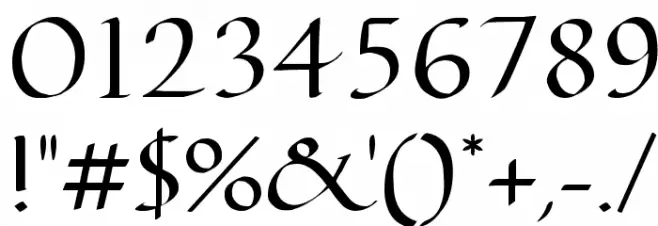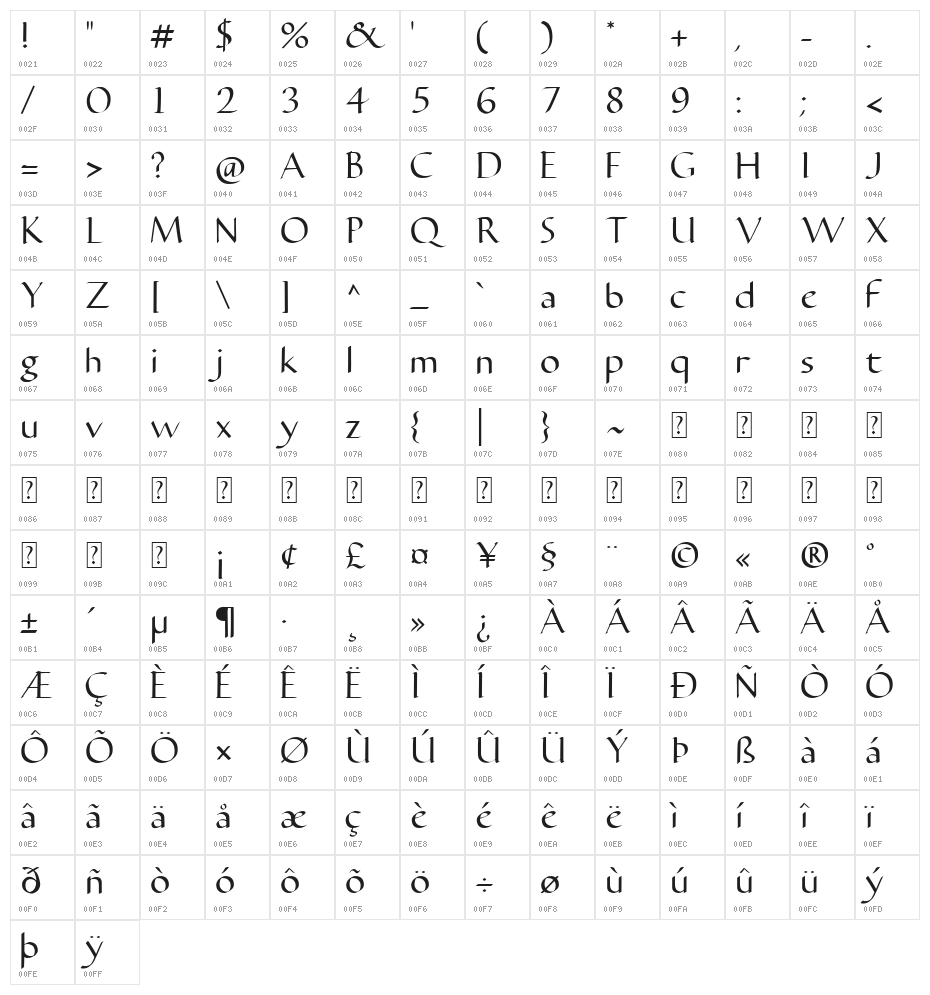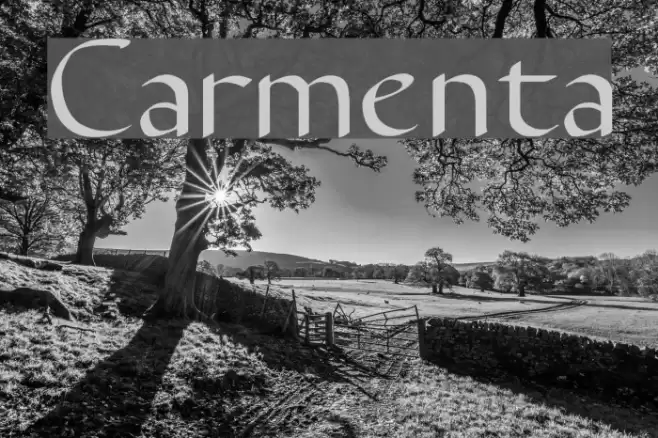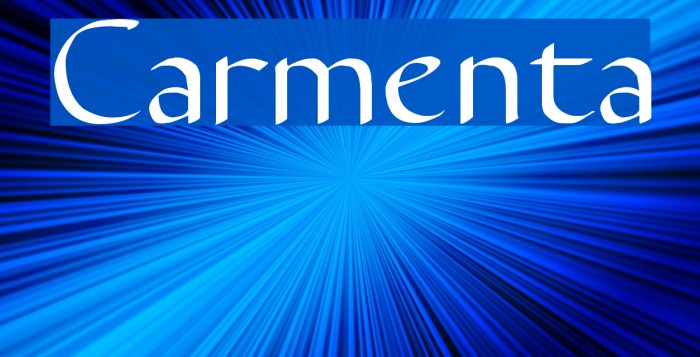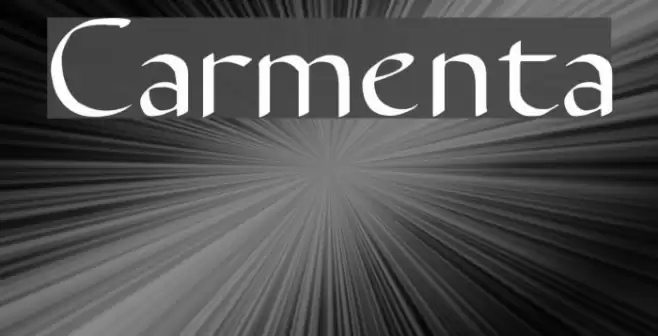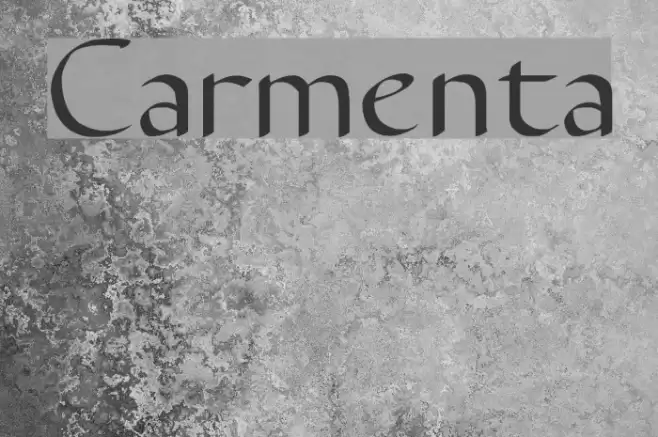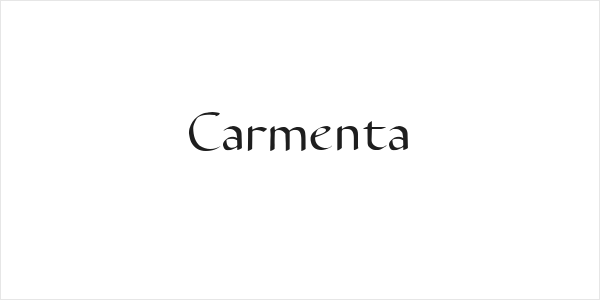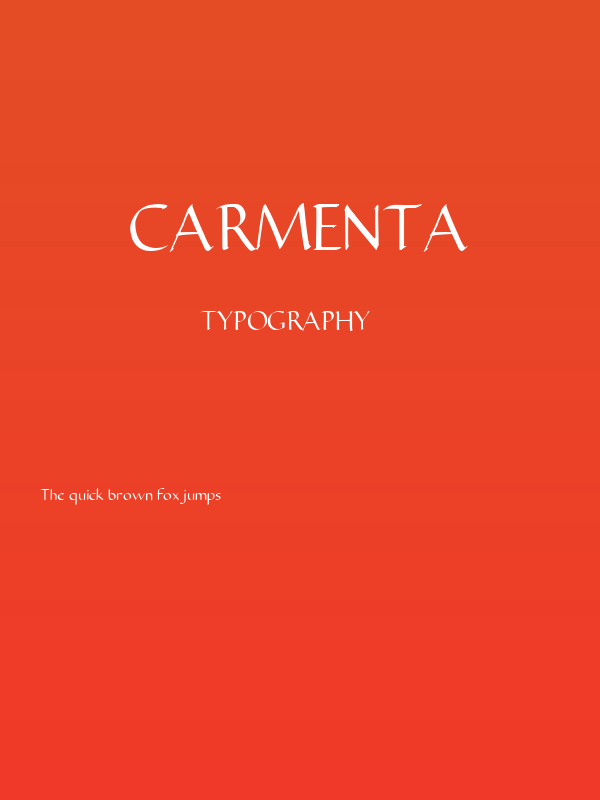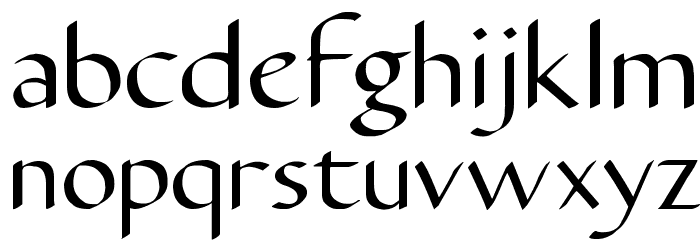
Carmenta Font
Carmenta Description
This font features a distinctive and elegant design with a modern twist. The uppercase letters are tall and slightly condensed, giving a sophisticated appearance. The lowercase letters maintain a consistent style with smooth curves and sharp edges, adding a dynamic feel. The numerals are clear and legible, with a unique flair that complements the overall aesthetic. Special characters are well-integrated, maintaining the font's cohesive look. The strokes vary in thickness, providing a medium contrast that enhances readability while maintaining visual interest.
| Use Case | Logos, Headlines, Editorial design |
| Proposed Projects | Ideal for branding, editorial design, and high-end product packaging. |